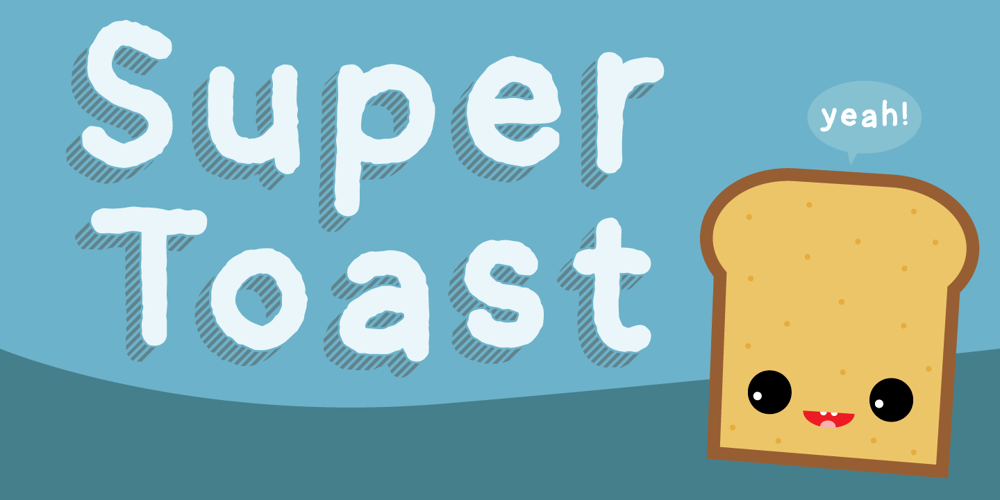
Super Toast
Super Toast font
Super Toast Font Family was designed by Jakob Fischer and published by PizzaDude.dk. Super Toast contains 3 styles and family package options. Who doesn’t like a toast? Who would mind using this font for a creative poster, a commercial for kids toys, an invitation for a party … ? Just to name a few! Super Toast is handmade to the bone, but has undergone a little digital work and some minor cleanups here and there. I’ve added 4 different versions of each lowercase letter, in order to make your text look more random and handmade and that goes with all 3 versions: Regular, Fill and Outline. Play around with the 3 versions, and combine them for stunning results! And of course I also threw in a good handful of international letters